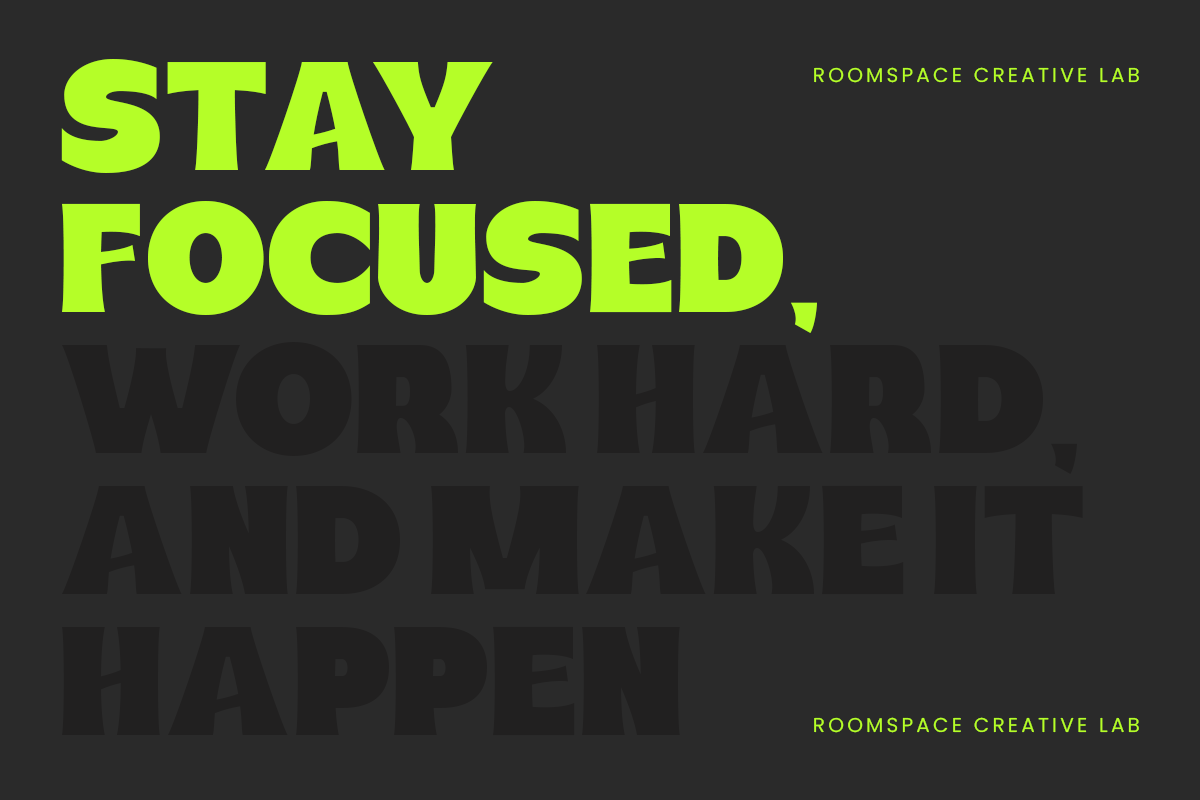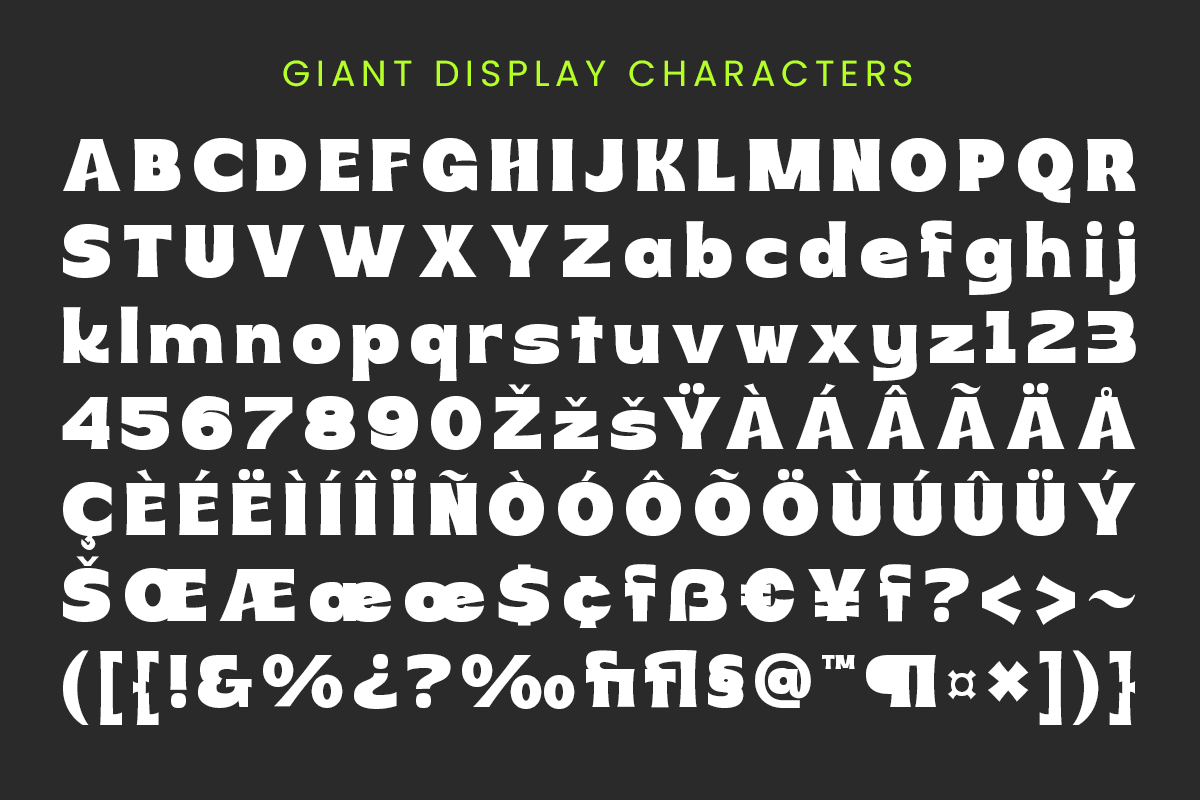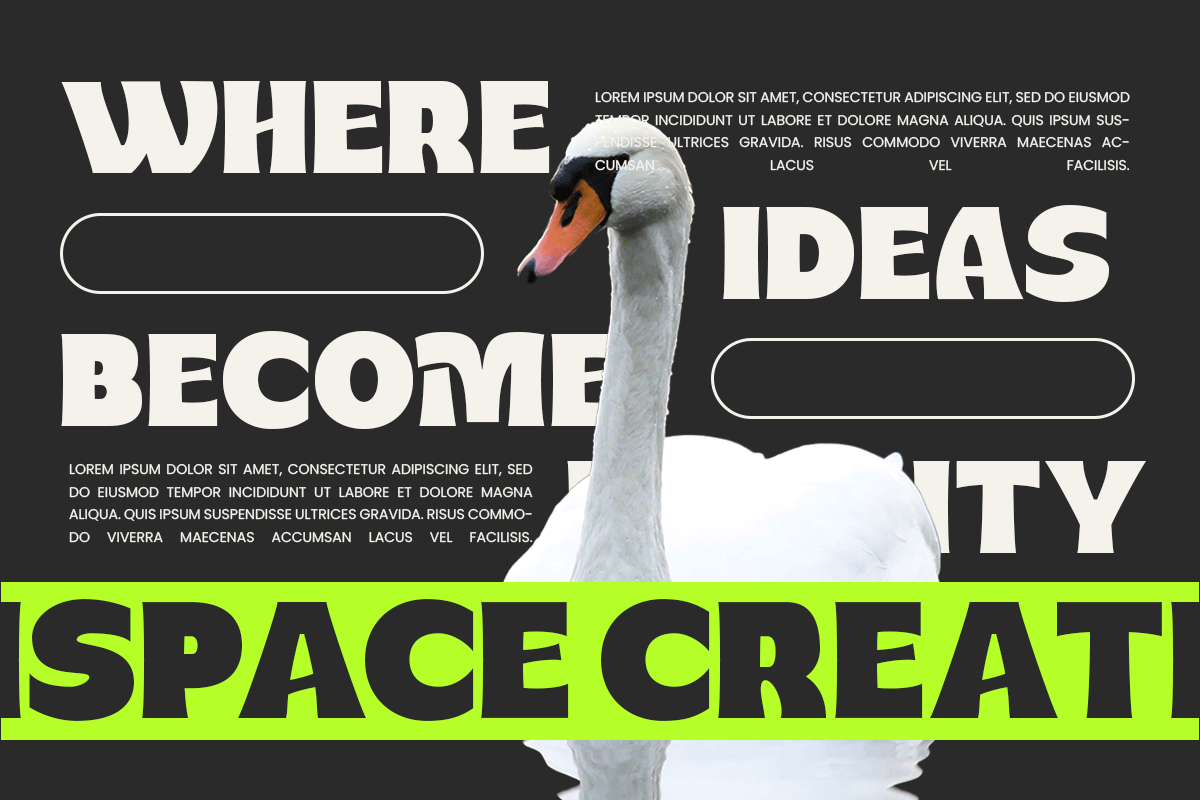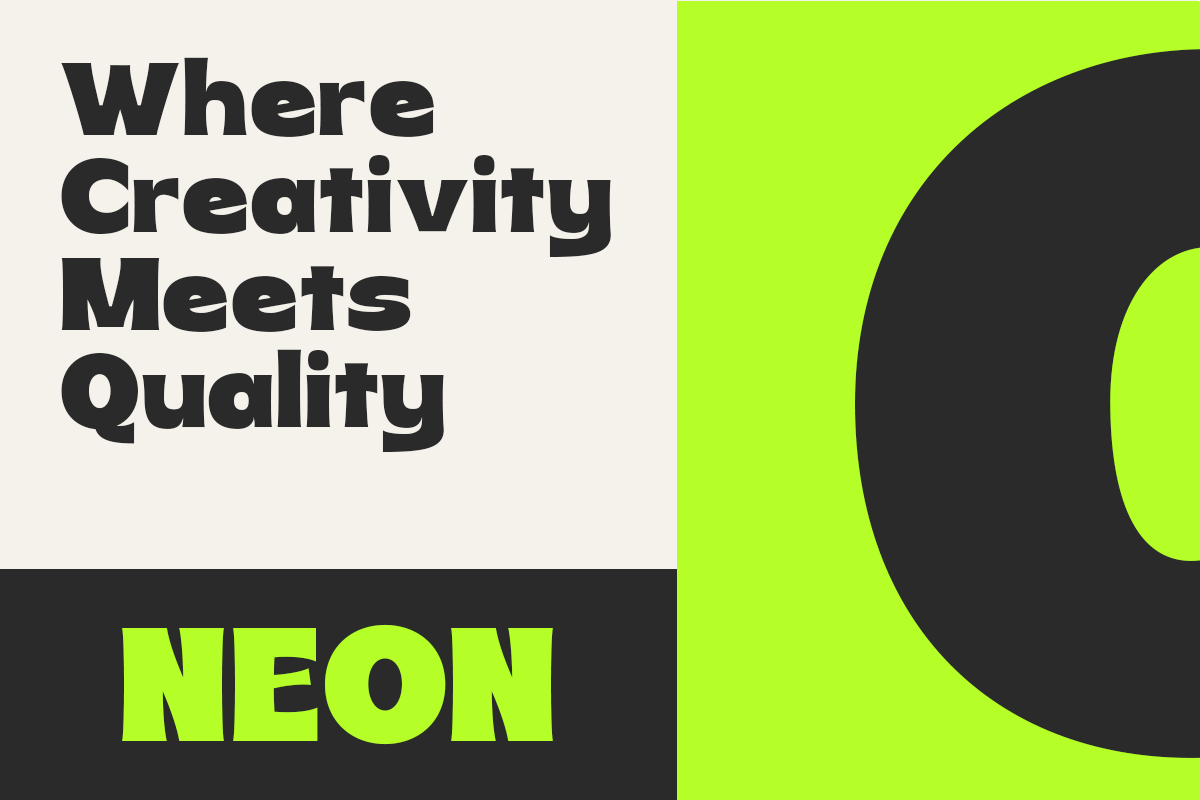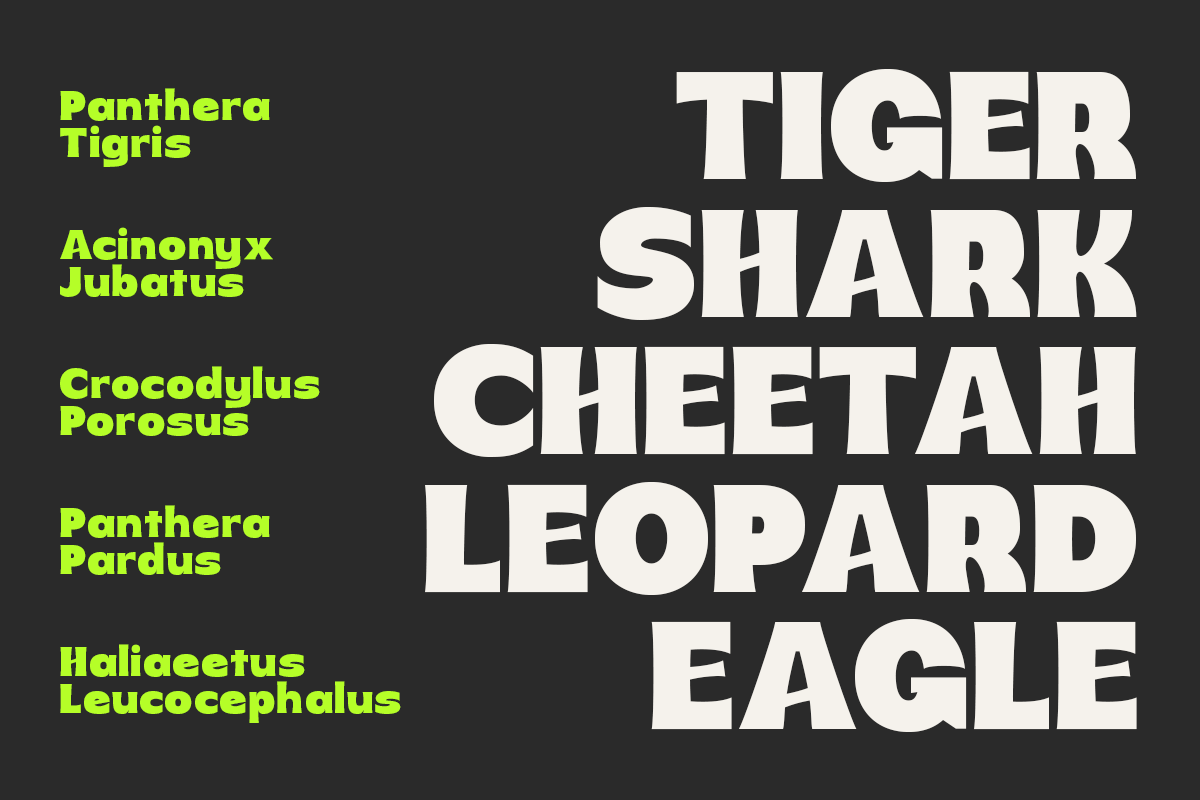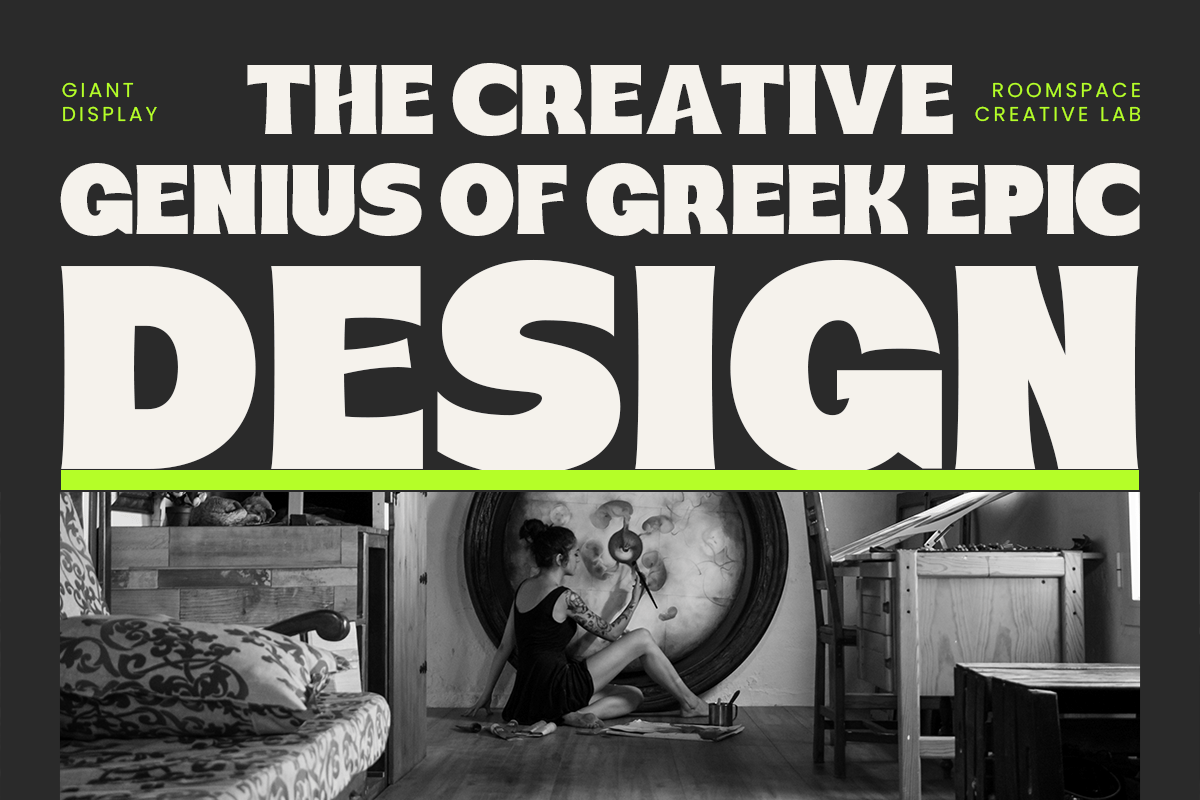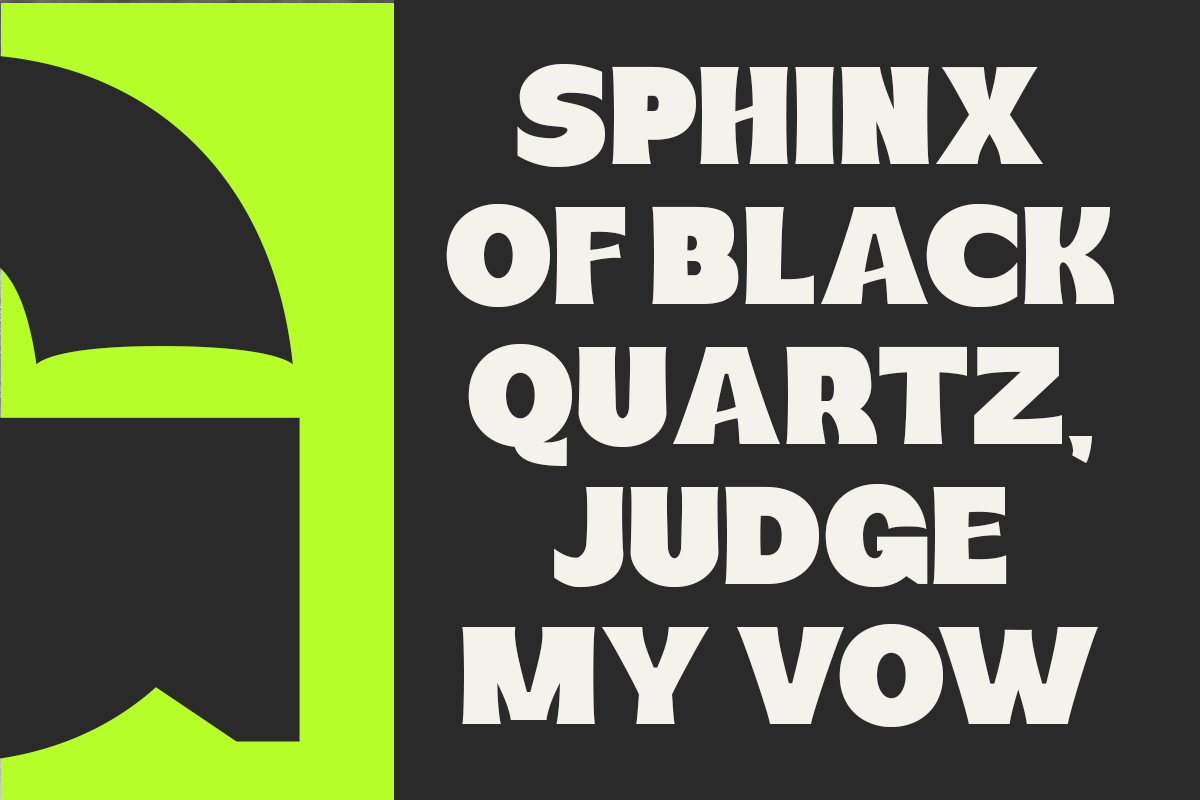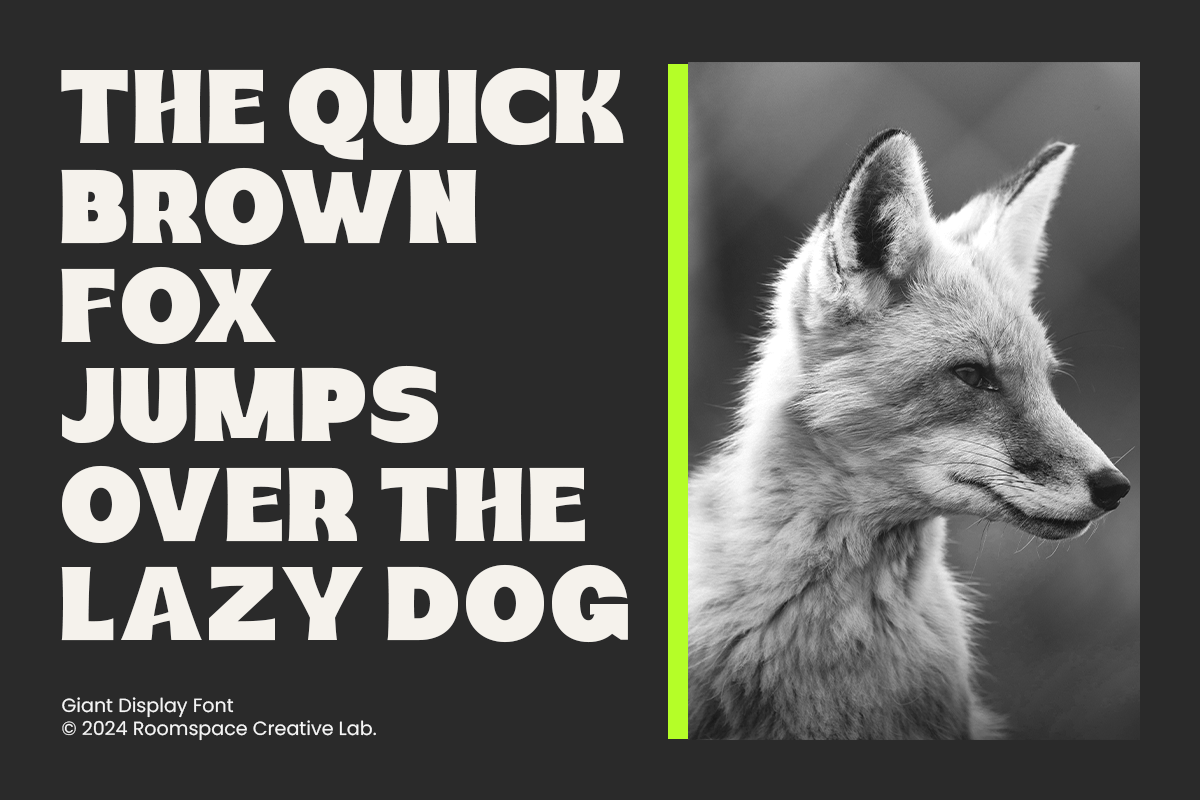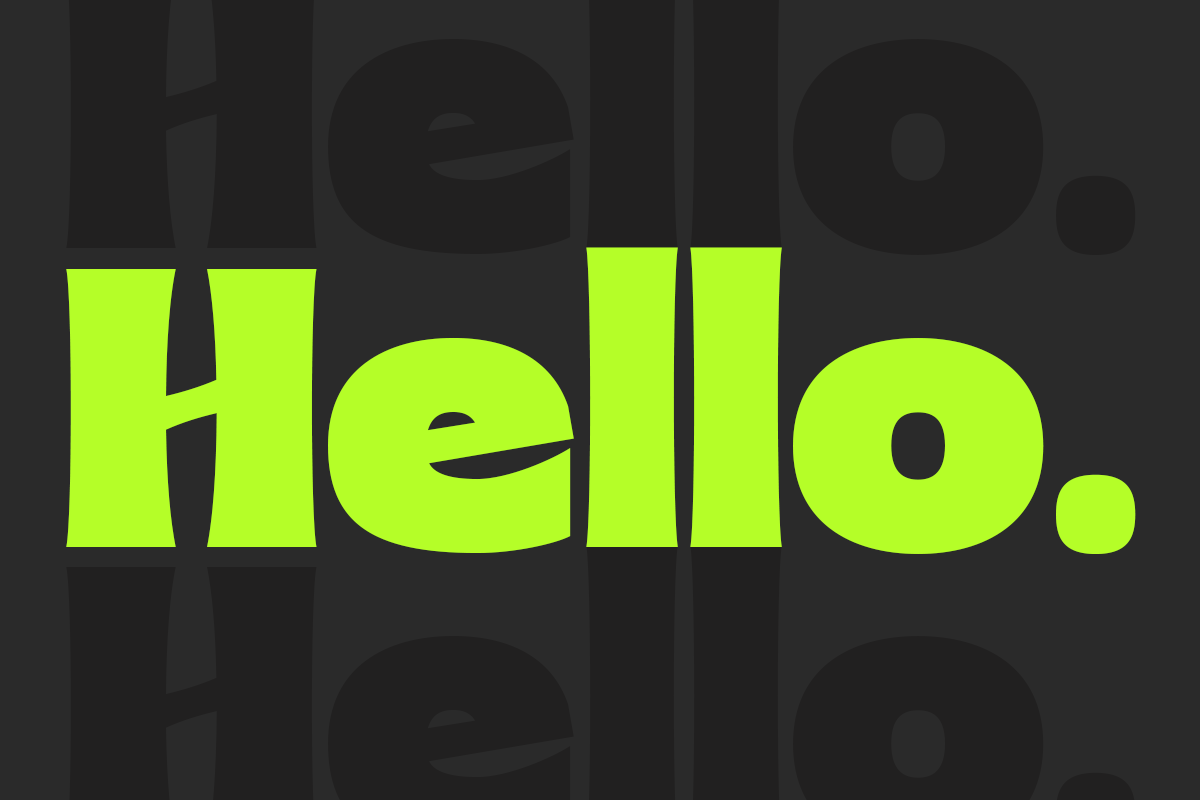
Modern Logo Branding Font – Giant Display
Giant Display a powerful sans serif display typeface designed to make a bold statement. With strong lines and an assertive style, this font is crafted to stand out in any project, from branding and posters to packaging and digital media. Its unique, impactful design draws attention and exudes confidence, making it perfect for headlines, logos, and any display-focused designs.
Giant Display combines modern simplicity with a commanding presence, ideal for designers looking to add an edge to their projects. Compatible with Adobe Illustrator, Photoshop, and other popular design software, this font also includes multilingual support, ensuring it meets the needs of diverse audiences. Embrace the power of Giant Display and let your designs speak volumes!